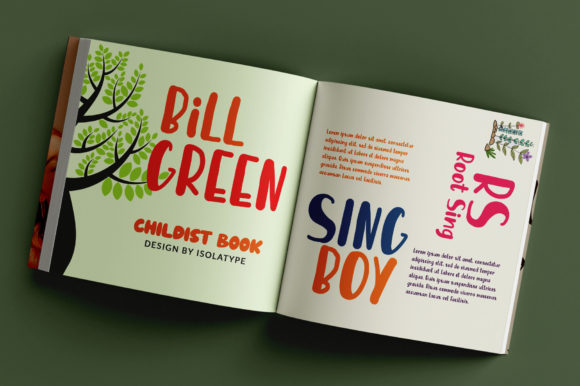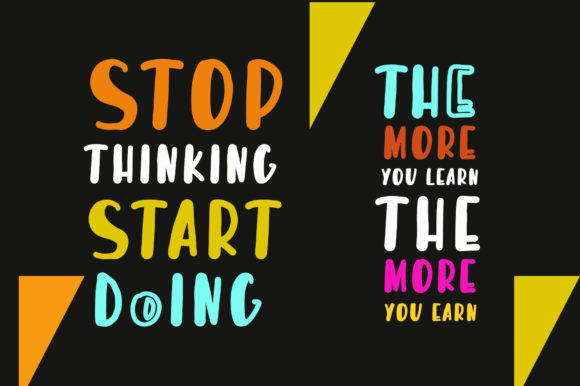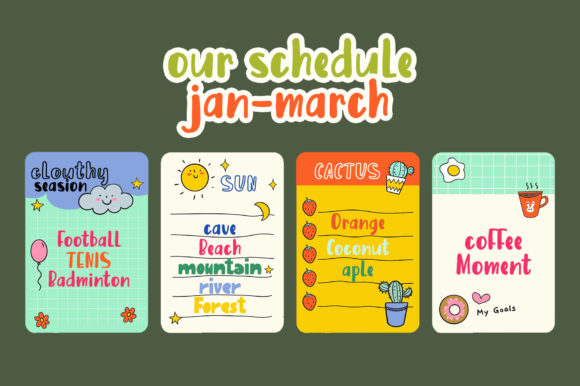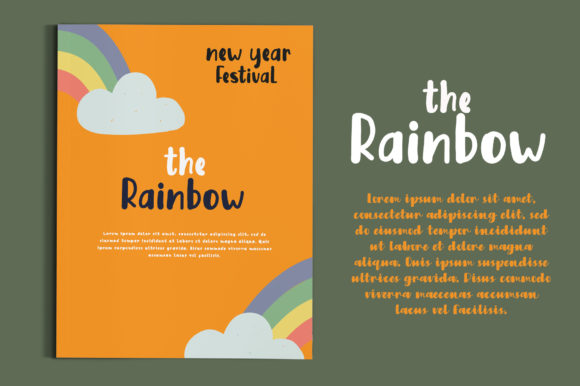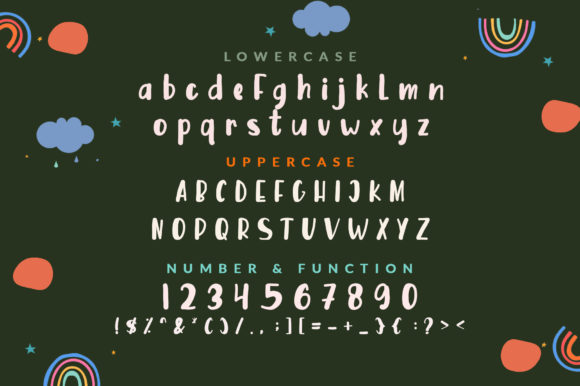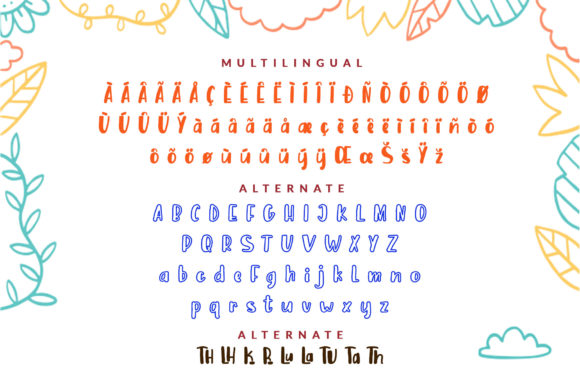
Introduction to Eco King Font
There’s nothing quite like the thrill of starting a new creative project – the blank canvas, the endless possibilities, and the anticipation of bringing your vision to life. For designers, this moment is especially exhilarating, as the right tools can make all the difference between a mediocre design and a masterpiece. And that’s where the Eco King Font comes in – a beautiful, hand-crafted typeface that’s sure to elevate your next project.
With its charming, playful characters that seem to dance along the baseline, the Eco King Font is the perfect addition to any design resource. Whether you’re working on a brand identity, a marketing campaign, or a simple graphic, this font is sure to add a touch of whimsy and personality. And the best part? It’s available for free download, making it an accessible and valuable resource for designers of all levels.
But what really sets the Eco King Font apart is its PUA encoding, which allows you to access all glyphs and swashes with ease. This means you can create complex, high-quality designs with a transparent background – perfect for designers who want to add an extra layer of sophistication to their work.
Key Features of Eco King Font
- High-quality design with a modern and eco-friendly theme, perfect for creative projects and sustainable branding.
- Unique characteristics include a bold and playful style, with a mix of rounded and angular shapes, making it perfect for creative and innovative projects.
Honest Review: Eco King Font
I recently stumbled upon the Eco King Font, and I must say it’s a great addition to any design project. ✨ The font is free to download, making it an excellent resource for designers on a budget. The transparent background allows for seamless integration with any design, giving you full creative control.
The Eco King Font is a high-quality font, perfect for use in various creative projects. Its modern design and sleek aesthetic make it an excellent choice for logos, branding materials, and even digital signage.
- High-quality design, perfect for modern creative projects
- Limitations:
- Limited character set, which may not be ideal for lengthy text
- No bold or italic font styles available
Overall, the Eco King Font is a solid addition to any design resource collection. While it may have some limitations, its free download and high-quality design make it a great choice for designers working on creative projects.
Eco King Font is ideal for:
Environmental campaigns and advertisements.
Sustainable lifestyle brand designs.
Green business logos and marketing materials.